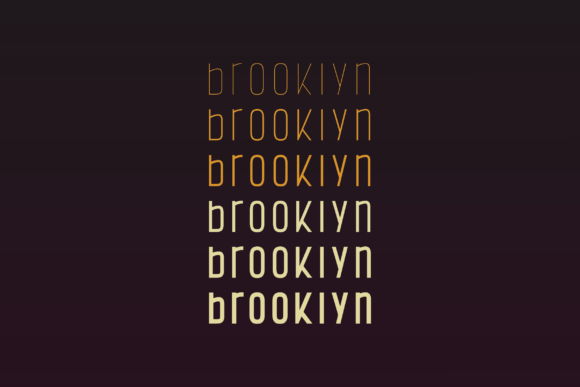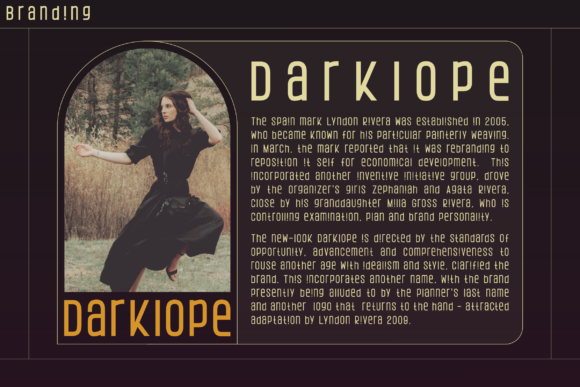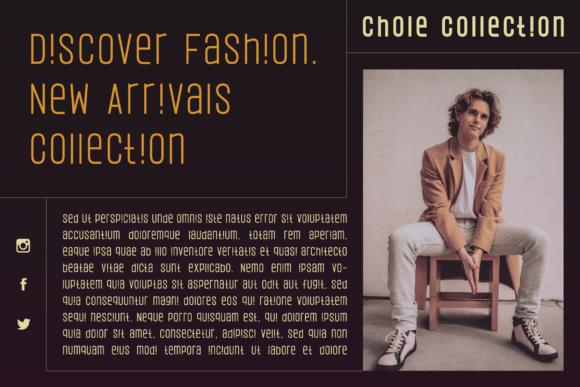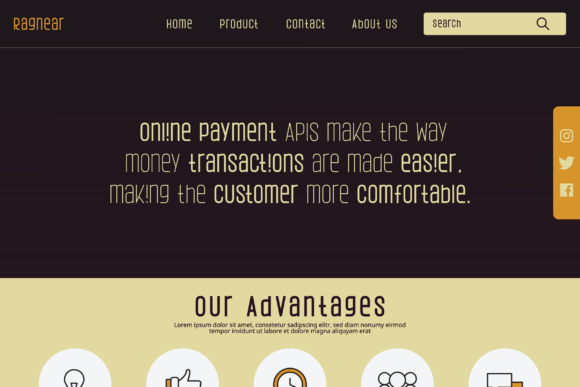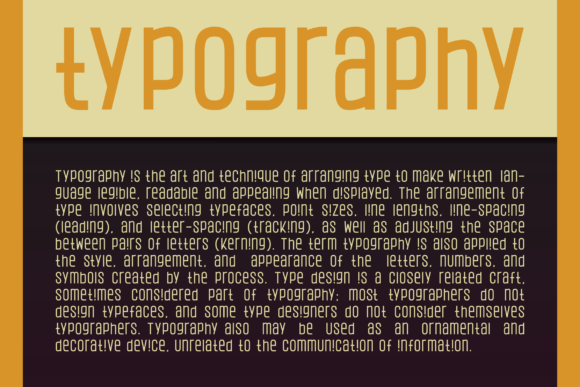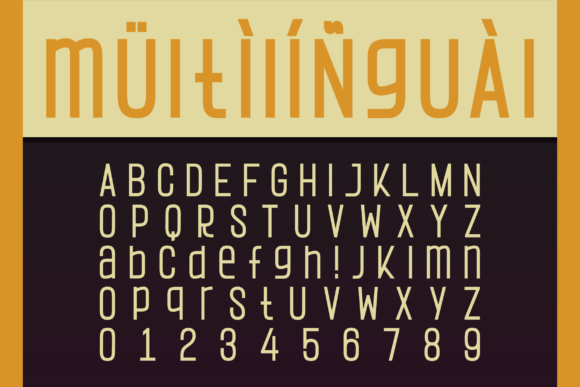
Introduction to Ragnear Display Version Font Font
Fonts play a crucial role in design, and the Ragnear Display Version Font font is a typeface that brings both character and versatility to any project. Whether you’re working on a branding project, a website, or a print design, the Ragnear Display Version Font font offers a unique style that can elevate your work.
Ragnear Display Version is a clean display font that adopts a modern style.
The uniqueness of each letter gives a strong and charismatic impression This font is suitable for websites, landing pages, posters, magazines, logos, logotypes, greetings, and more.
Key Features of Ragnear Display Version Font Font
Why Choose Ragnear Display Version Font Font?
The Ragnear Display Version Font font is more than just a typeface – it’s a design tool that helps you communicate your message with style and clarity. Its unique character set and versatile design make it suitable for a wide range of applications, from elegant invitations to bold headlines.
With its carefully crafted letterforms and balanced proportions, the Ragnear Display Version Font font ensures readability and visual appeal across all mediums.
What makes Ragnear Display Version Font font special?
The Ragnear Display Version Font font stands out with its unique design, exceptional readability, and versatility across various design applications.